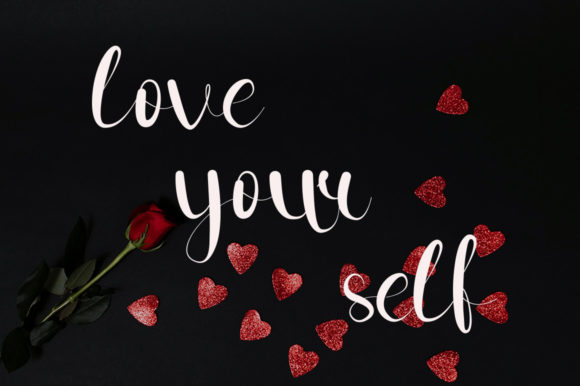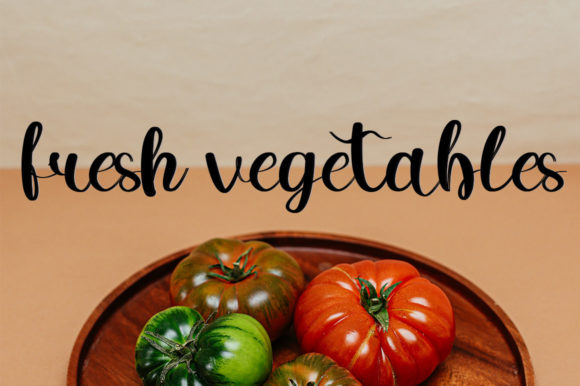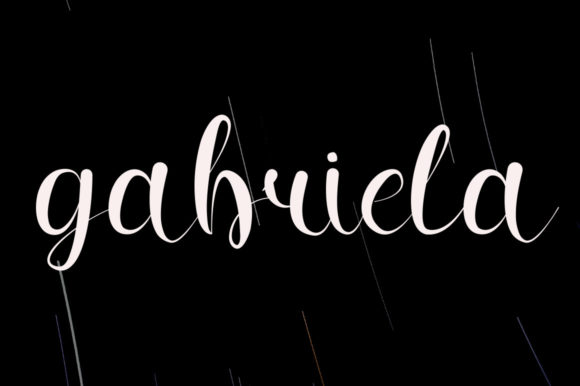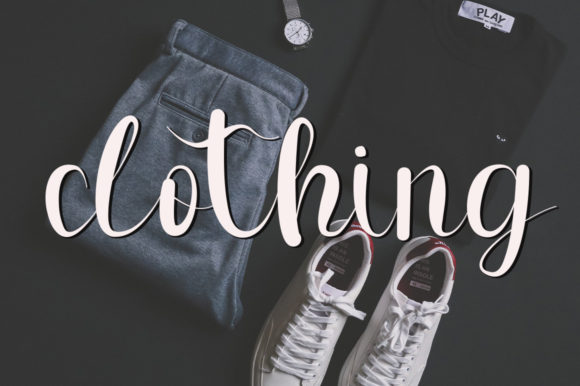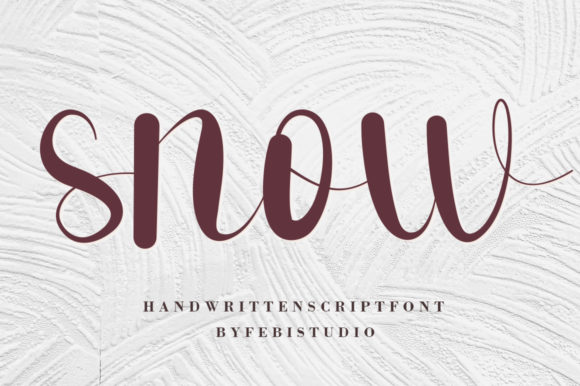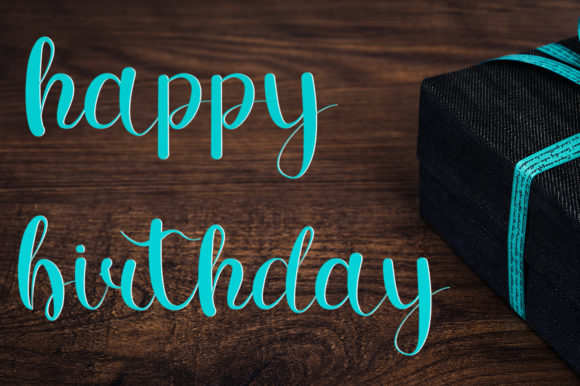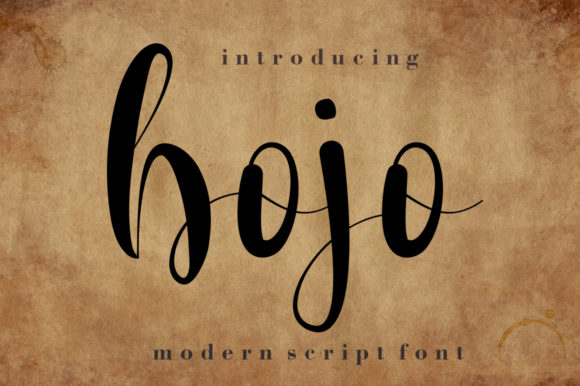
Introducing Bojo Font: Elevate Your Design with Elegant Typography
In the world of design, typography plays a crucial role in conveying messages, evoking emotions, and creating a lasting impression. For designers and crafters seeking a font that embodies elegance and versatility, Bojo Font is an excellent choice. This free-flowing script font is meticulously crafted for a wide range of applications, including packaging products, invitation cards, flyers, mock-ups, event posters, and more.
The Bojo Font Advantage
Bojo Font stands out from the crowd with its beautiful and well-balanced characters. This harmonious design ensures that the font seamlessly matches a wide pool of designs, making it an ideal choice for various creative projects. Whether you’re working on a sophisticated branding campaign or a vibrant event poster, Bojo Font adapts effortlessly to elevate your design.
Key Features of Bojo Font
- Free-flowing script design: Bojo Font boasts a smooth, flowing script style that adds a touch of elegance to any design.
- High-quality typography: The font is designed to deliver exceptional typography, making it perfect for applications where text needs to be clear, readable, and visually appealing.
- Versatility: Bojo Font is suitable for a wide range of design projects, from packaging and invitations to flyers and event posters.
- Well-balanced characters: The font’s carefully crafted characters ensure a beautiful and harmonious visual flow, making it easy to read and aesthetically pleasing.
Applications of Bojo Font
Bojo Font’s versatility makes it an excellent choice for various design applications. Here are some of the ways you can utilize this elegant font:
- Packaging products: Add a touch of sophistication to your product packaging with Bojo Font, making your brand stand out on store shelves.
- Invitation cards: Create beautiful and elegant invitation cards for weddings, parties, and other special events.
- Flyers and brochures: Use Bojo Font to create eye-catching flyers and brochures that effectively communicate your message.
- Mock-ups and event posters: Elevate your mock-ups and event posters with Bojo Font’s high-quality typography, making your designs more engaging and memorable.
Why Choose Bojo Font?
With numerous fonts available, why should you choose Bojo Font for your design projects? Here are a few compelling reasons:
- Elegant and sophisticated: Bojo Font’s free-flowing script design adds a touch of elegance and sophistication to any design.
- High-quality typography: The font’s focus on typography ensures that your designs look professional and visually appealing.
- Versatility: Bojo Font’s adaptability makes it suitable for a wide range of design applications.
- Easy to read: The font’s well-balanced characters ensure that text is easy to read, making it perfect for designs where communication is key.
In conclusion, Bojo Font is an exceptional choice for designers and crafters seeking a elegant and versatile font for their creative projects. Its beautiful and well-balanced characters, high-quality typography, and adaptability make it an ideal choice for a wide range of design applications. Whether you’re working on packaging products, invitation cards, flyers, mock-ups, or event posters, Bojo Font is sure to elevate your design and leave a lasting impression.